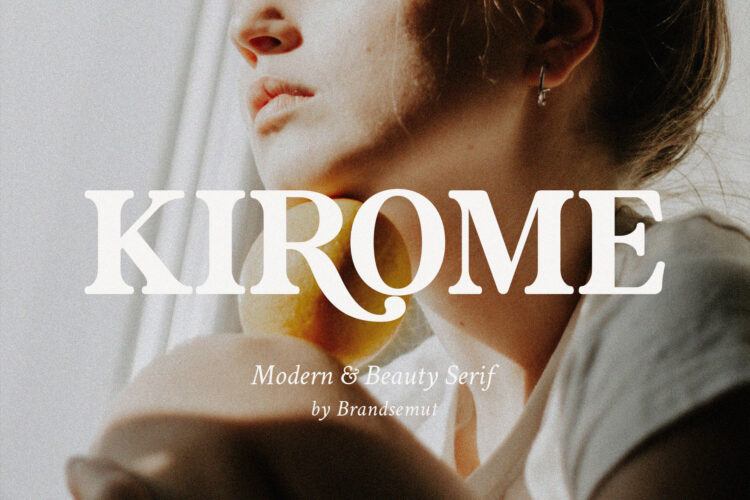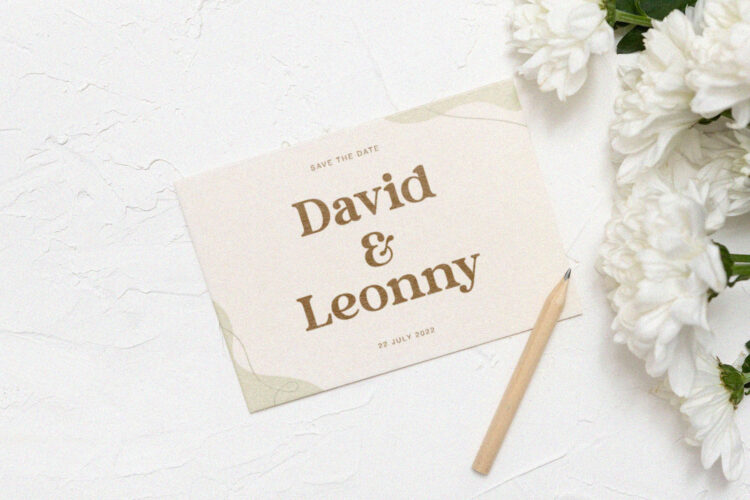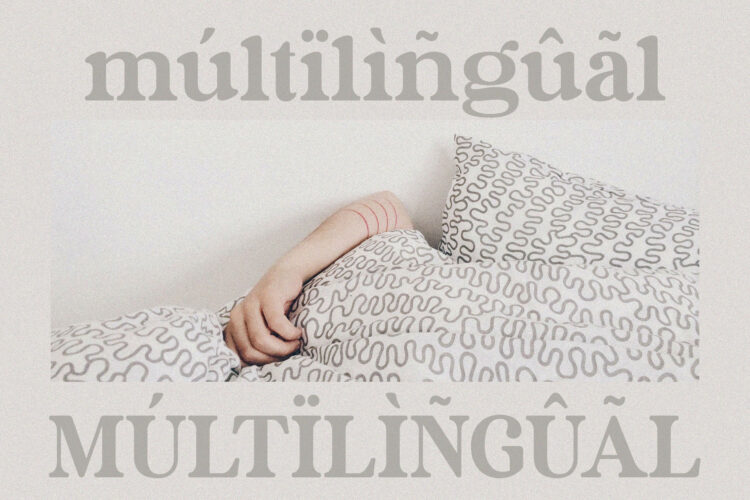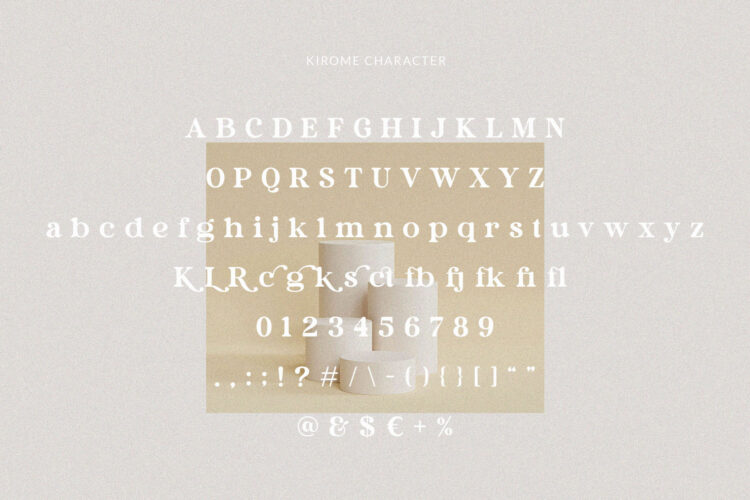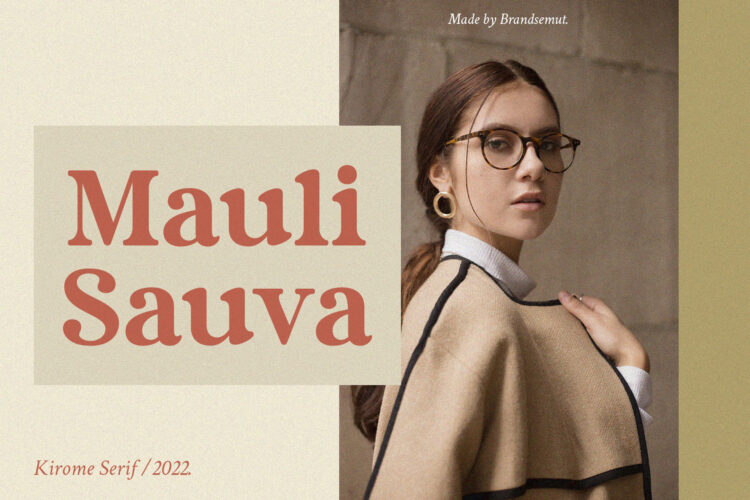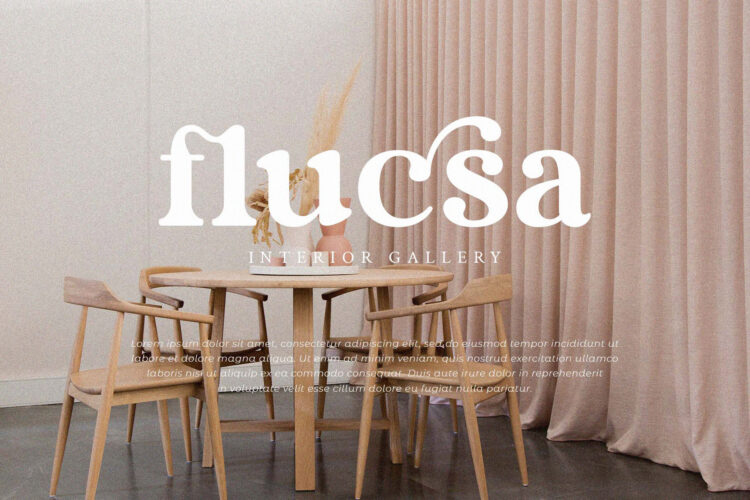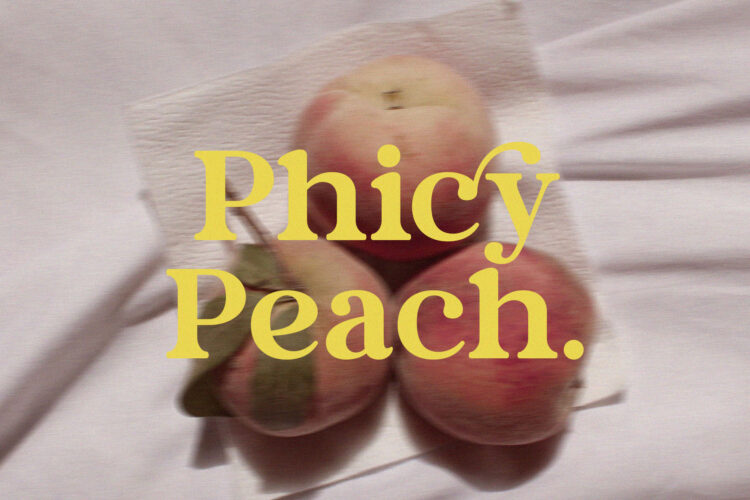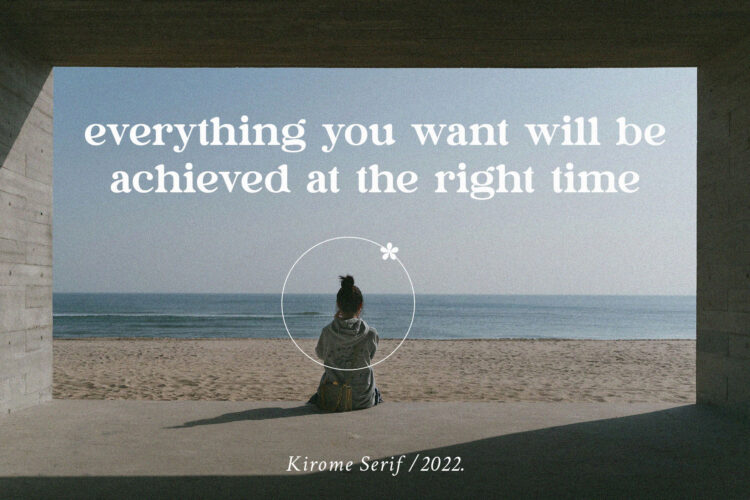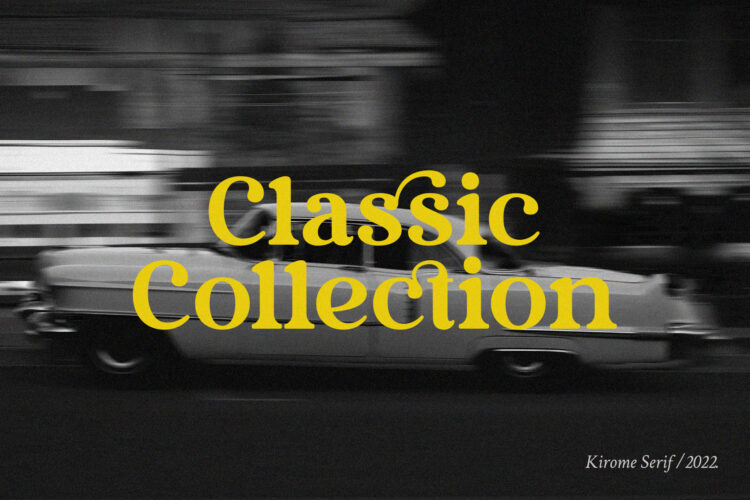
Introducing Kirome Modern & Beauty Serif Typeface.
Kirome is a retro and classics typeface, best used as a display for headings, logos, branding, magazines, product packaging and invitations. Kirome come with clean lines and smooth curves give any project an extra touch of class.